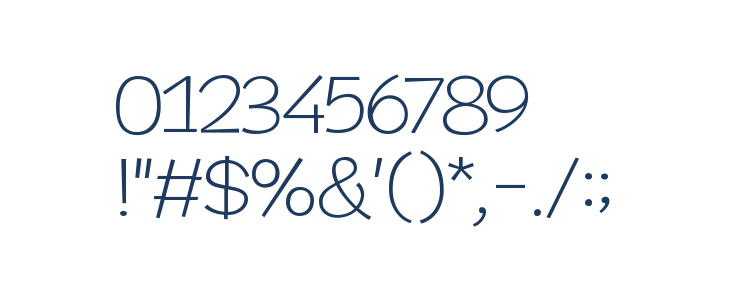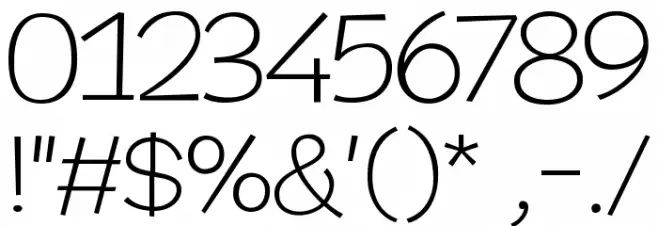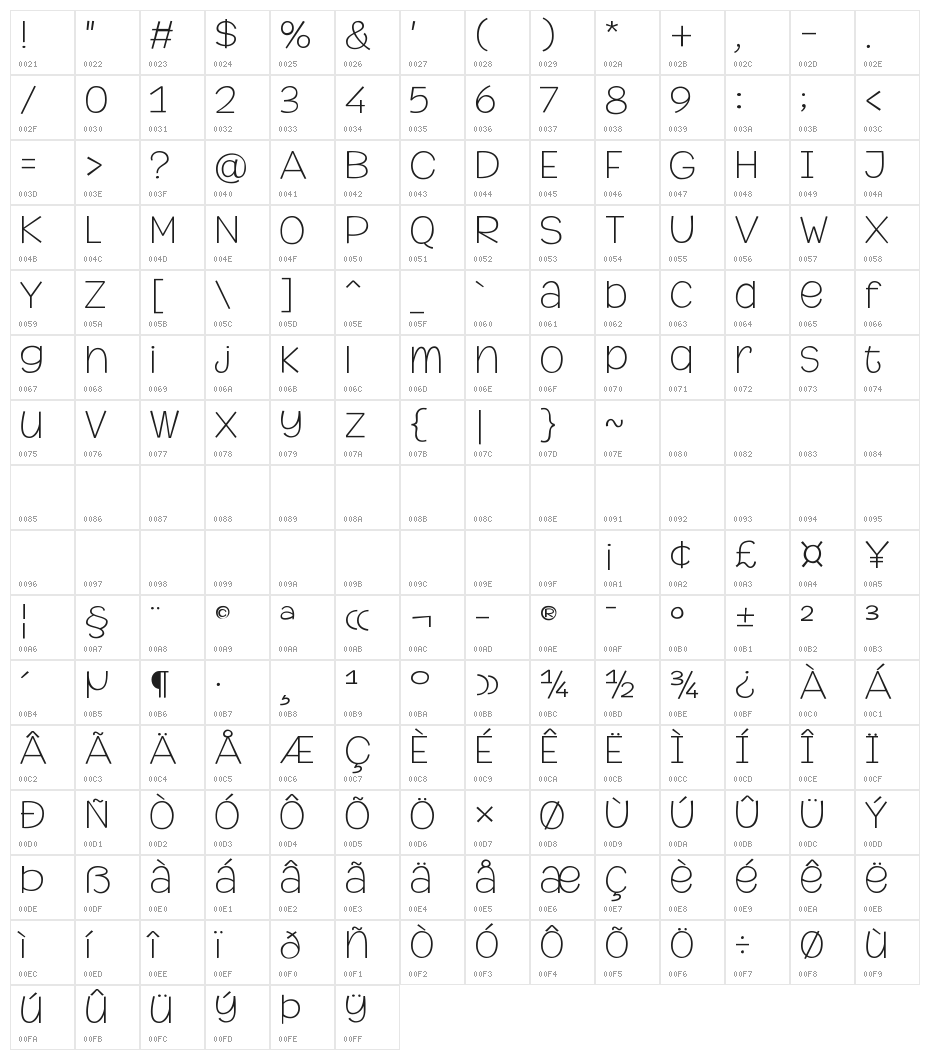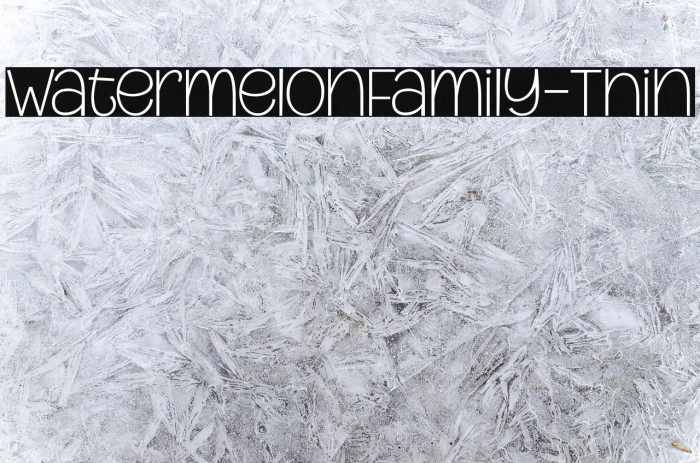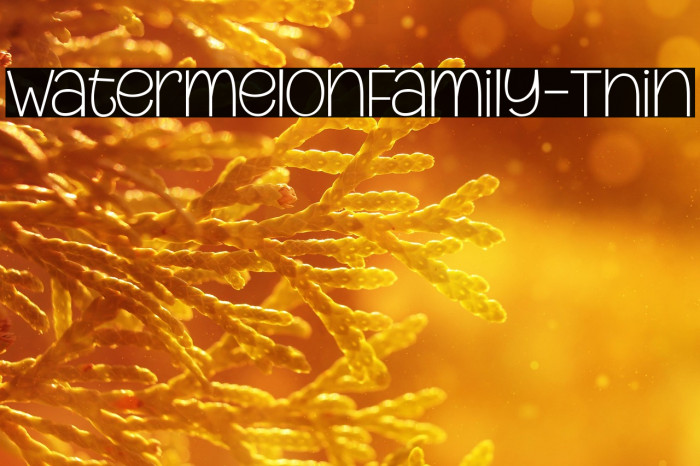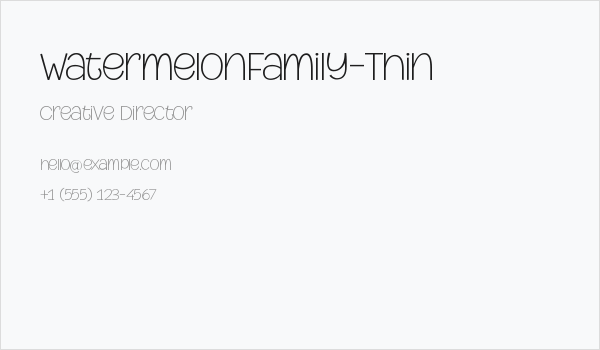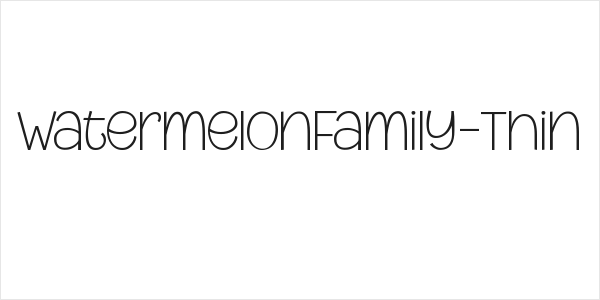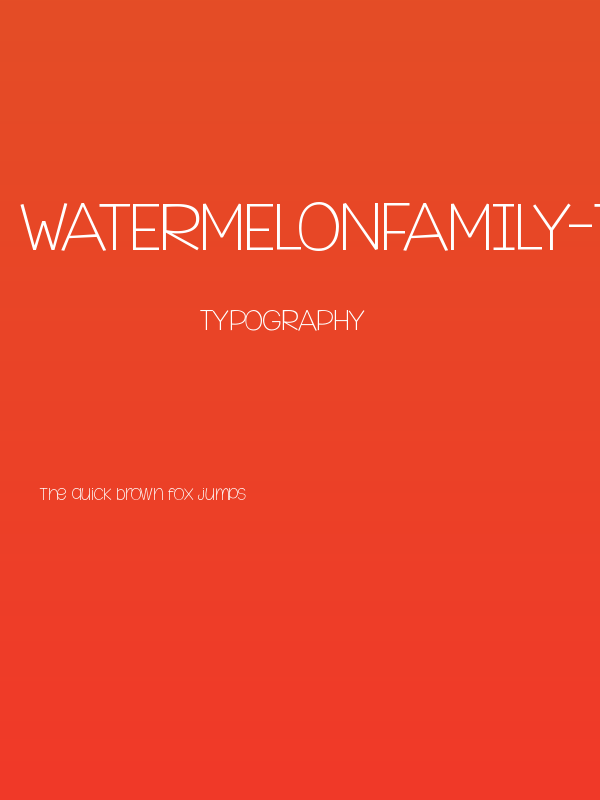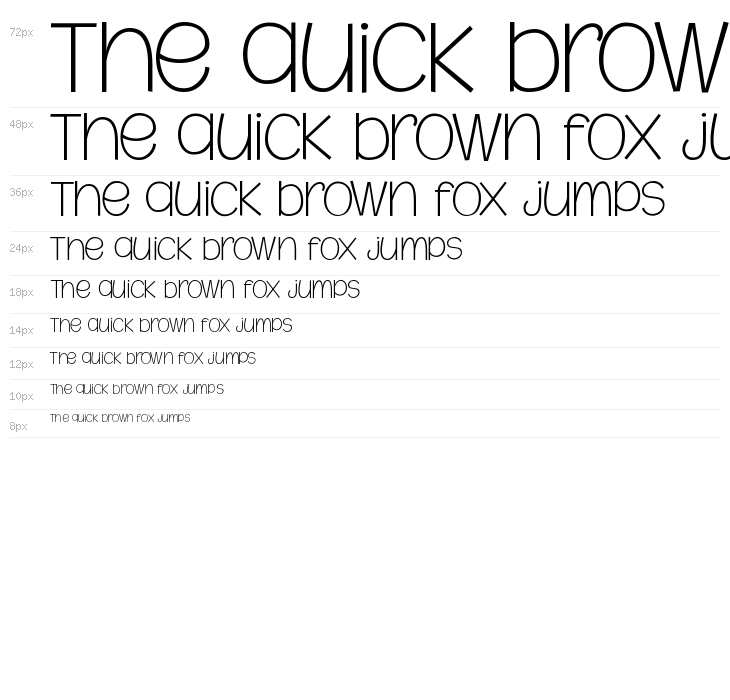
WatermelonFamily-Thin Font
WatermelonFamily-Thin Description
This font features a clean and modern design with a thin, elegant stroke. The characters are sans-serif, providing a sleek and contemporary appearance. The uppercase letters are slightly taller than the lowercase, maintaining a consistent line weight throughout. The numerals are proportional and align well with the overall style, while the special characters are crafted to match the aesthetic seamlessly. Its minimalistic approach makes it versatile for various design applications, offering a refined and sophisticated look.